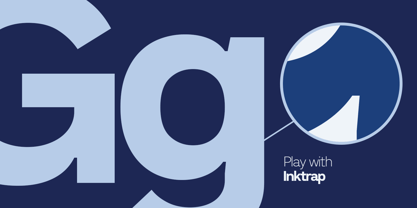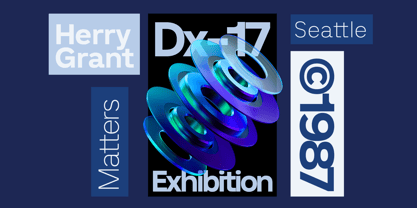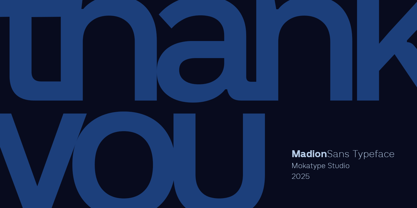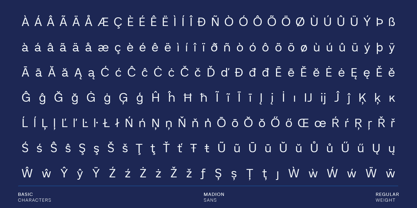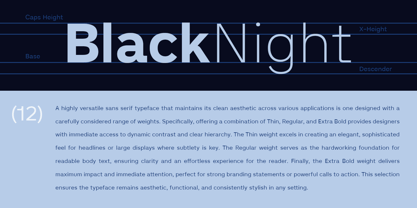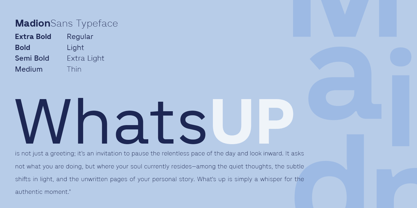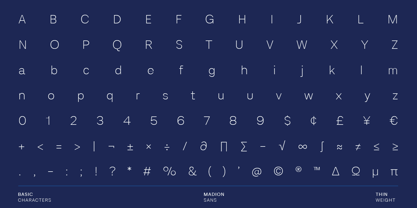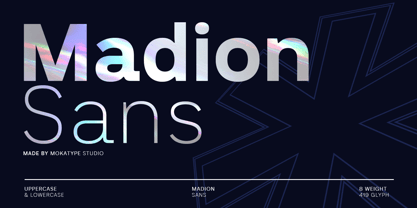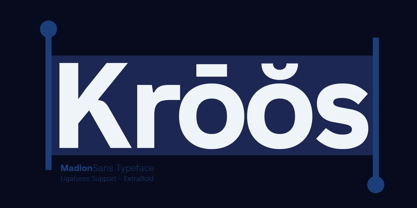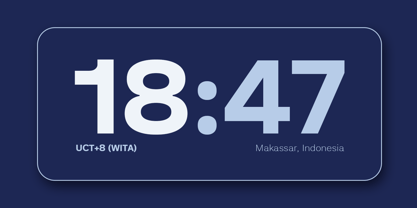
Madion
by Mokatype Studio
The Madion Font Family was designed by Abdul Malik Wisnu, Rivo Adriansyah and published by Mokatype Studio. Madion contains 8 styles and family package options.
Madion is a modern geometric sans-serif designed for clarity, structure, and forward-thinking brands. With 8 carefully balanced weights, it bridges the gap between futuristic aesthetics and timeless functionality. Clean lines and refined geometry give it a professional tone that fits seamlessly into UI design, web interfaces, corporate branding, and editorial layouts. From minimal logotypes to precise interface text, Madion adapts effortlessly—its lighter weights bring elegance to body copy, while bold styles deliver strong, confident headlines. Each letterform is engineered for smooth rhythm and optimal legibility across digital and print environments. Perfect for: UI/UX design, web design, branding systems, corporate identities, editorial, and digital products. Style & Feel: geometric • formal • futuristic • versatile
Designers: Abdul Malik Wisnu, Rivo Adriansyah
Publisher: Mokatype Studio
Foundry: Mokatype Studio
Design Owner: Mokatype Studio